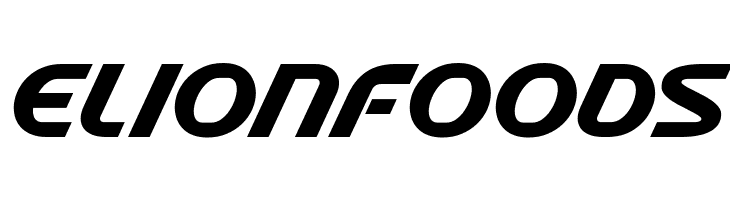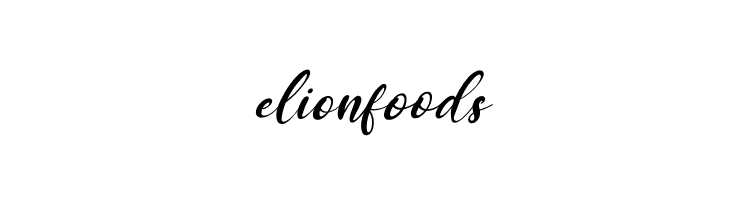
A bold, playful font with rounded edges and a slight slant.
A bold, rounded, and slightly slanted font with a modern and friendly style.
A sharp, thorny font perfect for horror and gothic themes.
A modern, elegant script font with flowing, cursive characters.
A bold, graffiti-inspired font with sharp, angular lines and a dynamic style.
A bold, italic script font with dynamic, angular strokes and a modern flair.
An elegant script font with flowing, cursive strokes and ornate flourishes.
A flowing, elegant script font with a sophisticated, italic style.
An elegant, flowing script font with bold uppercase and smooth lowercase letters.